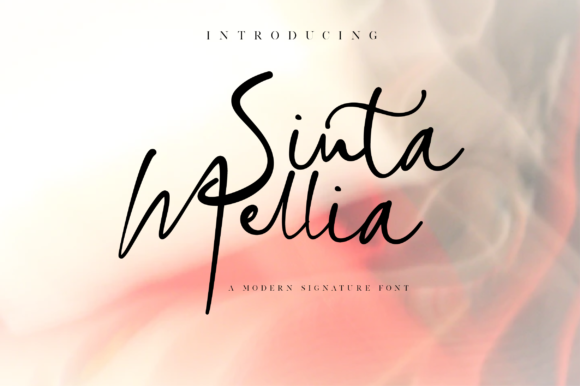
Sinta Mellia Font
About Sinta Mellia Font
Sinta Mellia is inspired by classic typography and brings its own unique style to any design project. This fantastic handwritten font is best suited for headlines of all sizes, as well as for blocks of text that have both maximum and minimum variations.